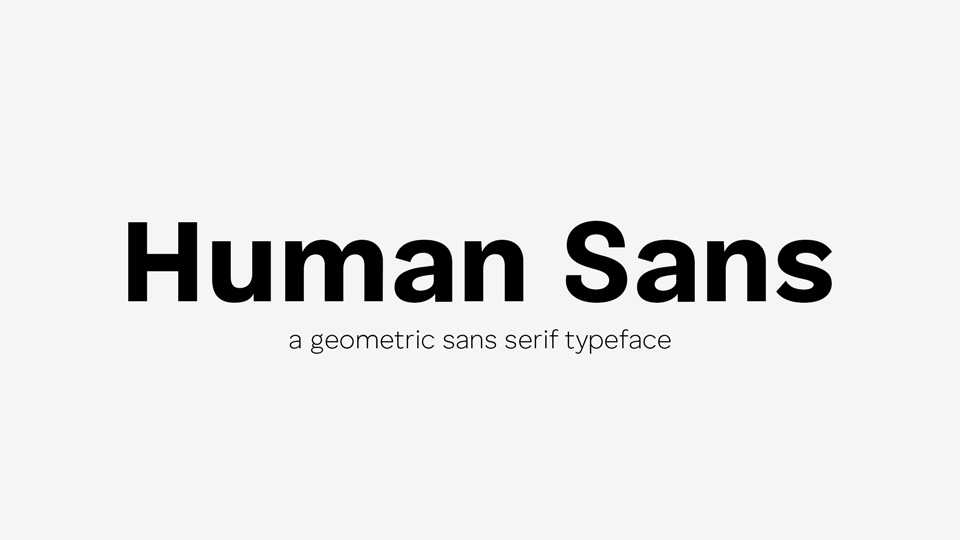
Download Human Sans typeface, a geometric sans serif font family originally designed in 2016 for Continuum. The elegant balance of neutrality and modernism makes Human Sans extremely versatile in its functionality
Designer: Tim Radville